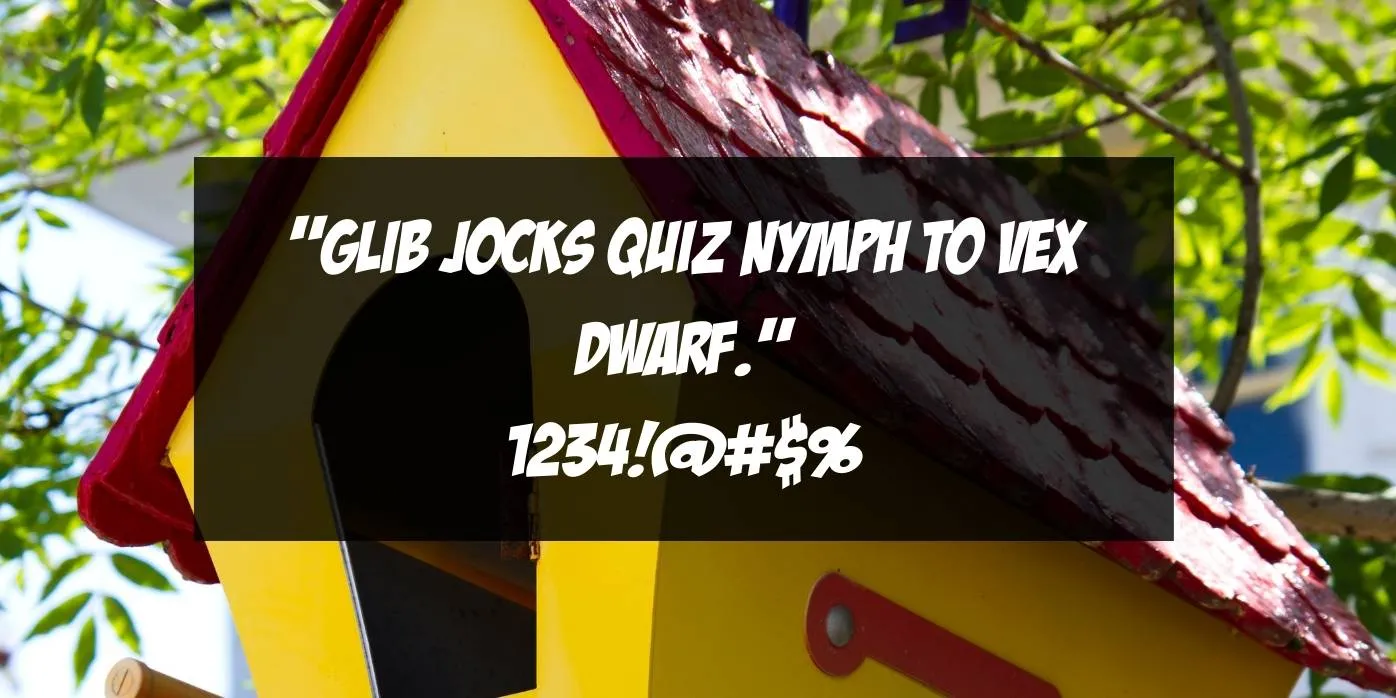
Badaboom BB Font
Badaboom BB Font is very popular and famous in the whole design industry. This classy typeface was developed by Blambot. It belongs to the fancy font family. You can use this best font for comic books as well as various other design purposes.
This most used font is perfect for making creative and innovative designs. This stylish font is available in uppercase, lowercase, numeral, and punctuation marks. You can easily download this free font from the internet and use it in your personal and commercial projects. You can also use its similar wicked font for many designs.